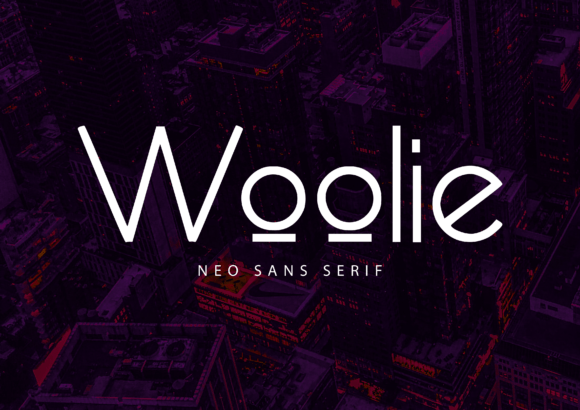
Introducing Woolie, the font that will ignite your designs with a futuristic flair. This cutting-edge sans serif font boasts a sleek and modern aesthetic, meticulously crafted to elevate your creative projects to new heights.
With its clean lines, sharp angles, and a hint of playfulness, Woolie injects a touch of contemporary charm into your designs. Whether you're crafting eye-catching headlines, designing sleek logos, or creating immersive sci-fi environments, Woolie effortlessly adapts to your vision.
Immerse yourself in the world of tomorrow with Woolie's futuristic allure. Its unique character set empowers you to convey your message with precision and style, leaving an unforgettable impact on your audience.
Join the ranks of visionary designers who embrace Woolie's innovative spirit. Its versatility knows no bounds, making it the perfect companion for a wide range of projects, from branding and marketing materials to captivating website designs and thought-provoking presentations.
Don't settle for ordinary fonts. Embrace the transformative power of Woolie and unleash your creativity. Let its futuristic essence ignite your imagination and propel your designs into the realm of the extraordinary.